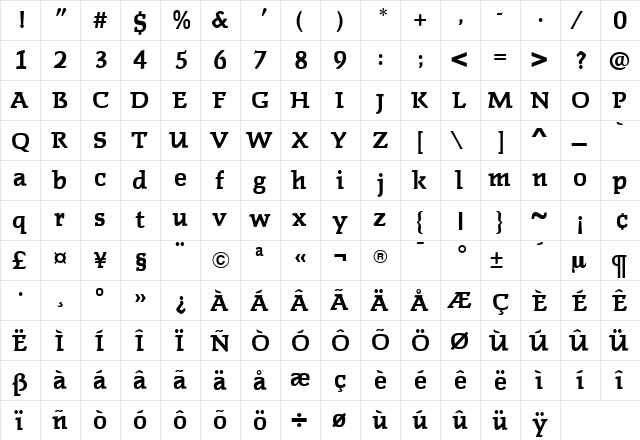
FaustBold Roman
Design Context for FaustBold Typeface
FaustBold is a composed and adaptable typeface that performs quietly and consistently across a wide range of design contexts. The heavy weight commands attention and anchors typographic hierarchies.